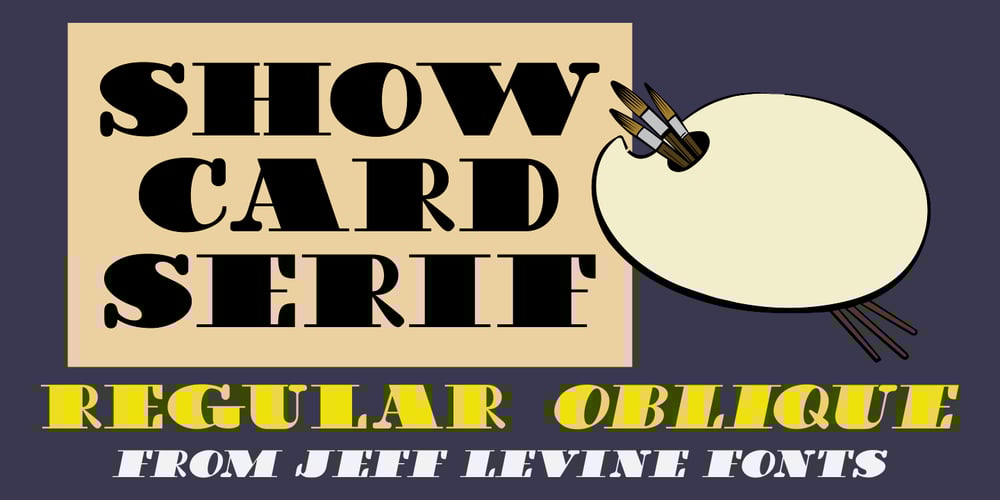
Show Card Serif JNL
Show Card Serif JNL font
Show Card Serif JNL Font Family was designed by Jeff Levine and published by Jeff Levine. Show Card Serif JNL contains 2 styles and family package options. In the 1939 instructional book “Learning to Letter” by Paul Carlyle and Guy Oring you’ll find an example of show card lettering that’s extra bold, playful, somewhat squat, casual and attention-getting all at the same time.This unique alphabet is now available digitally as Show Card Serif JNL, in both regular and oblique versions.